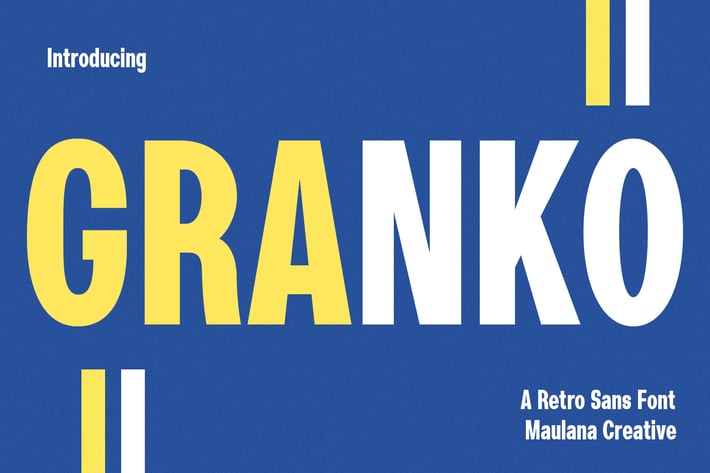
Granko Condensed Sans Display Font
Granko is a a retro vibes condensed sans serif font. Bold stroke, fun character with a bit of ligatures and alternates. To give you an extra creative work. Granko font support multilingual more than 100+ language. This font is good for logo design, Social media, Movie Titles, Books Titles, a short text even a long text letter and good for your secondary text font with script or serif. Make a stunning work with Granko font.